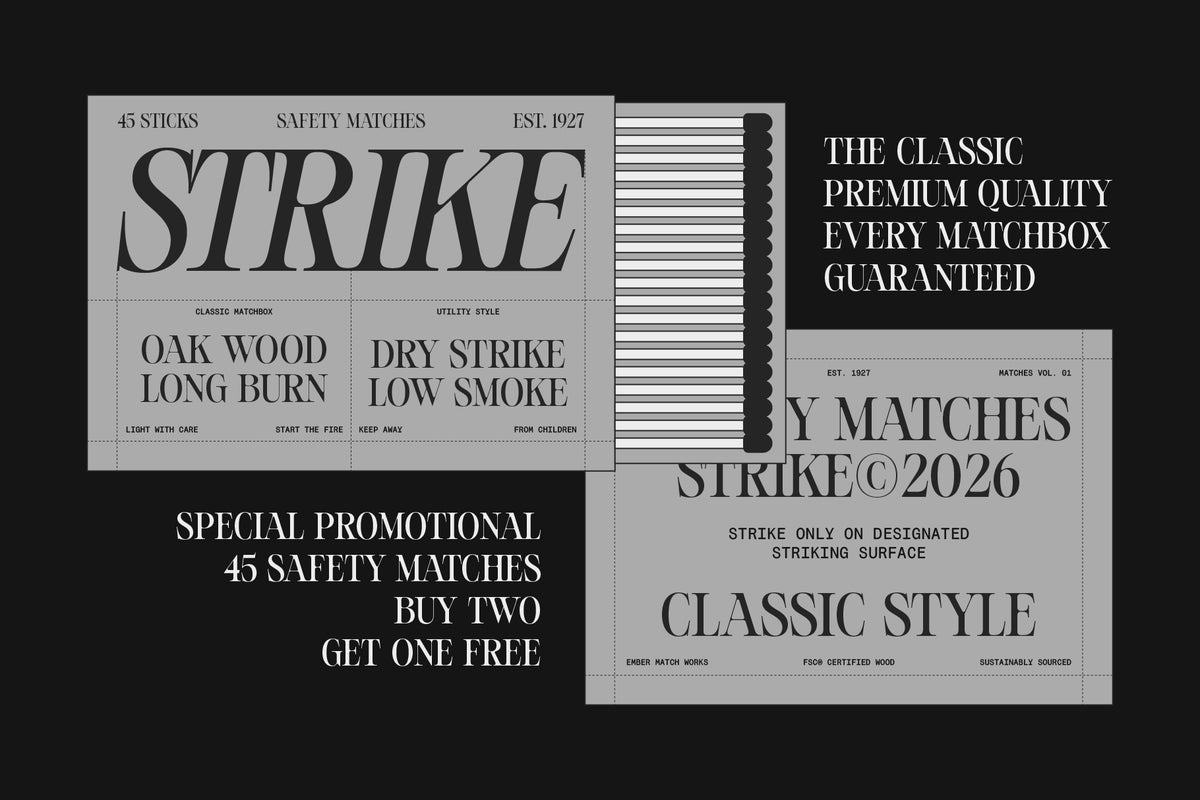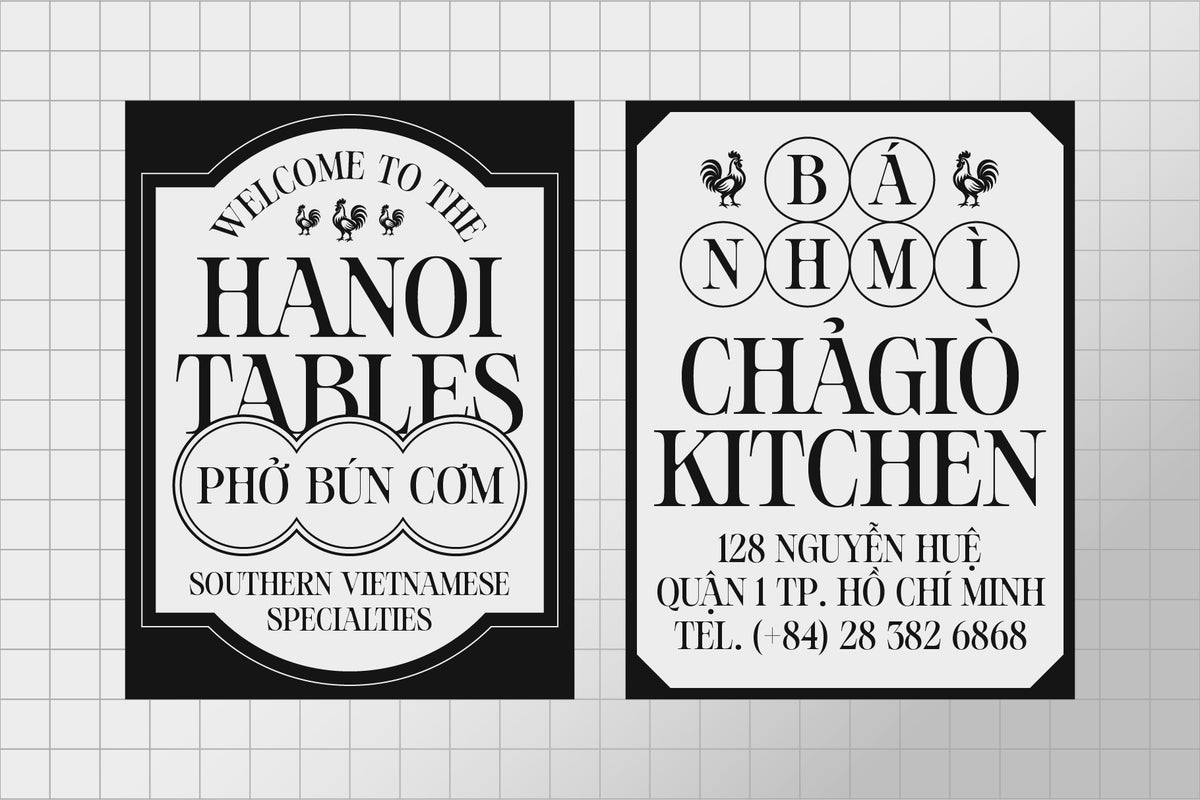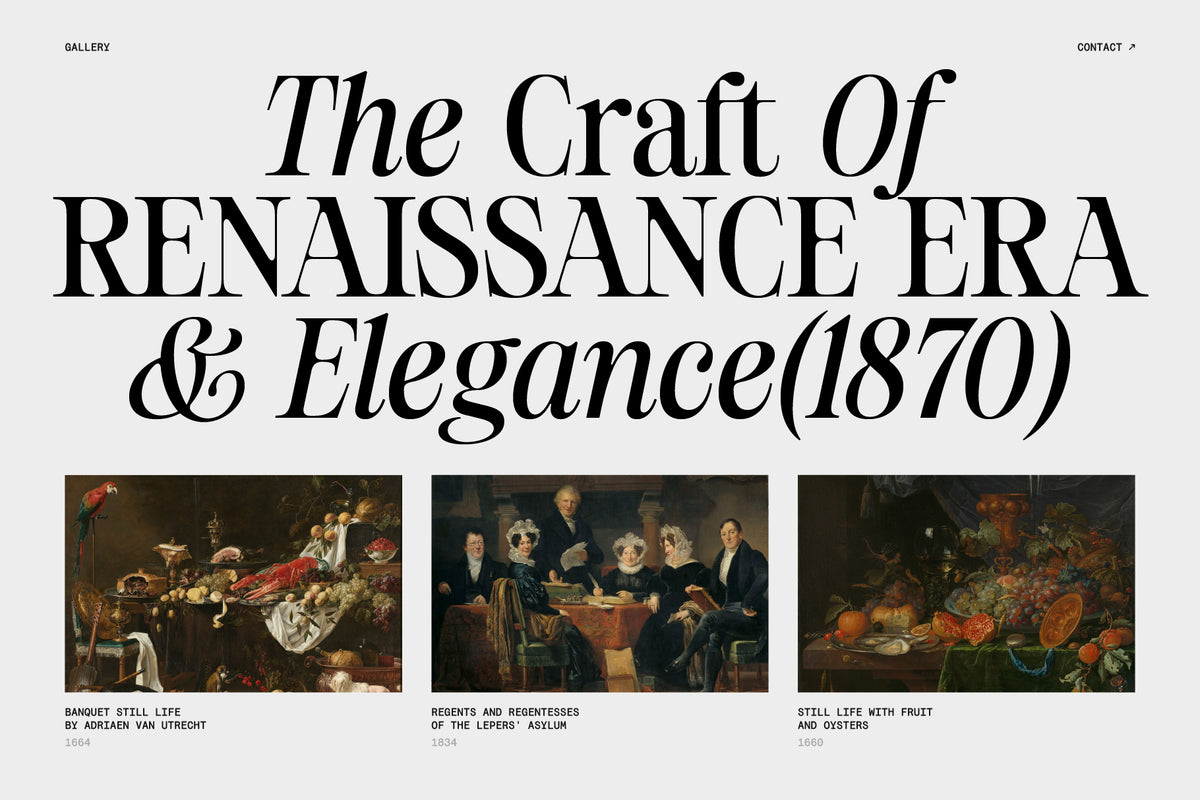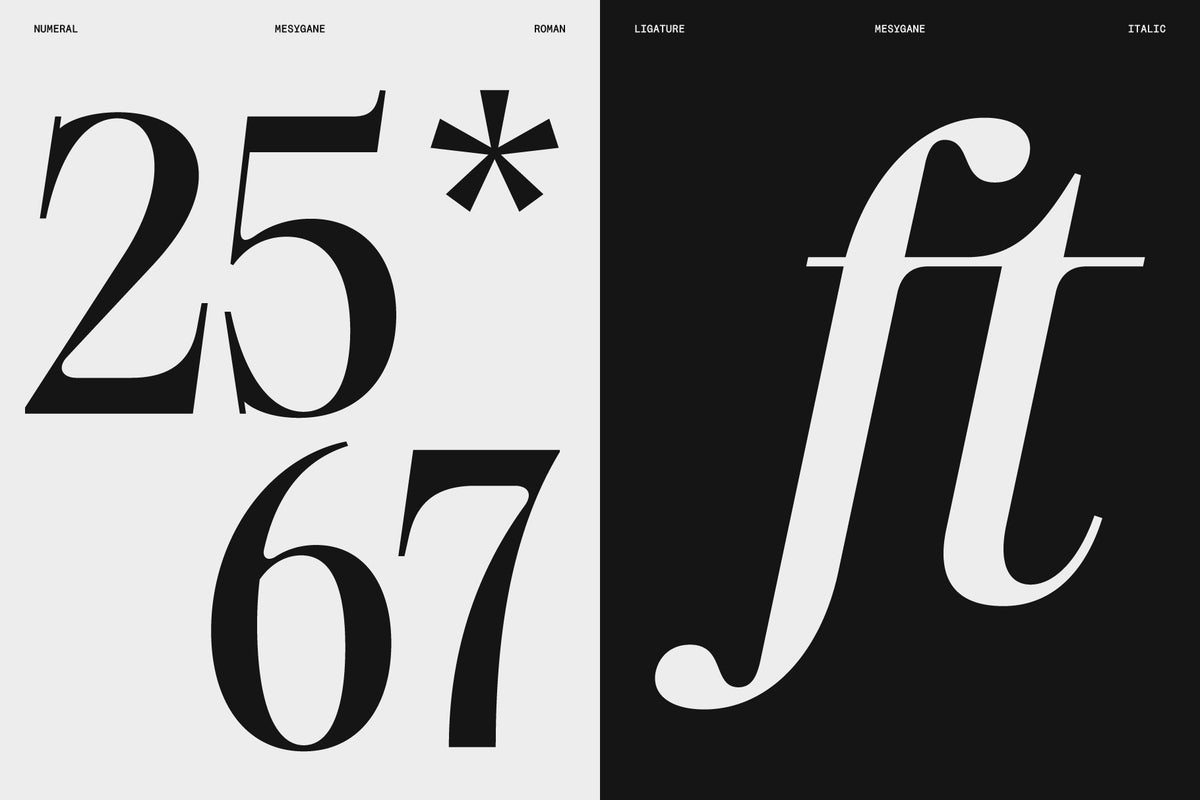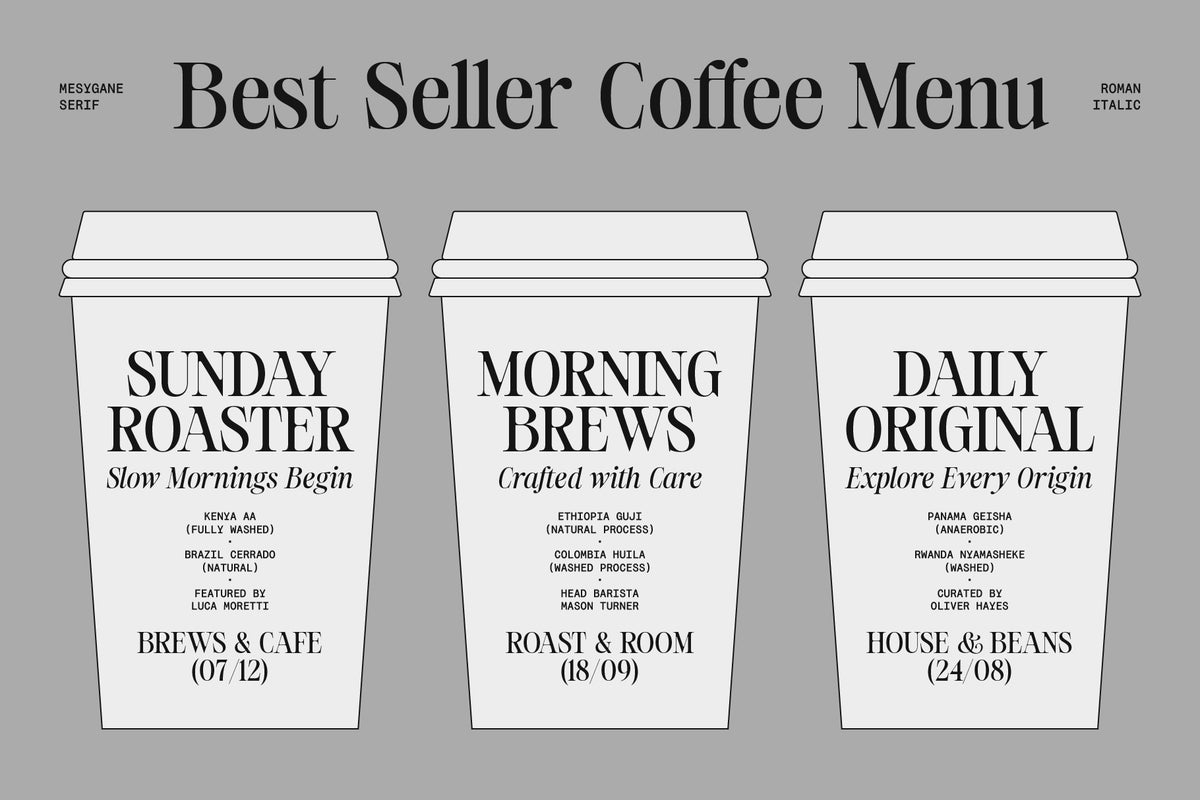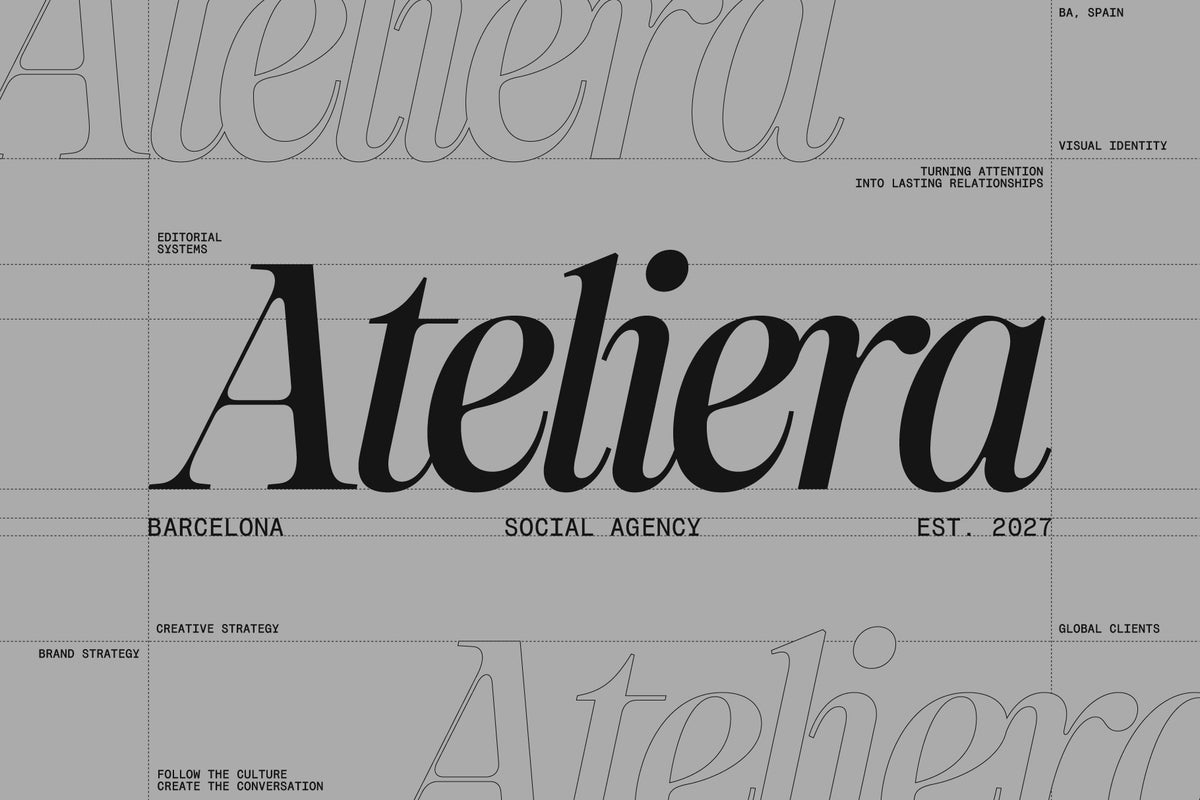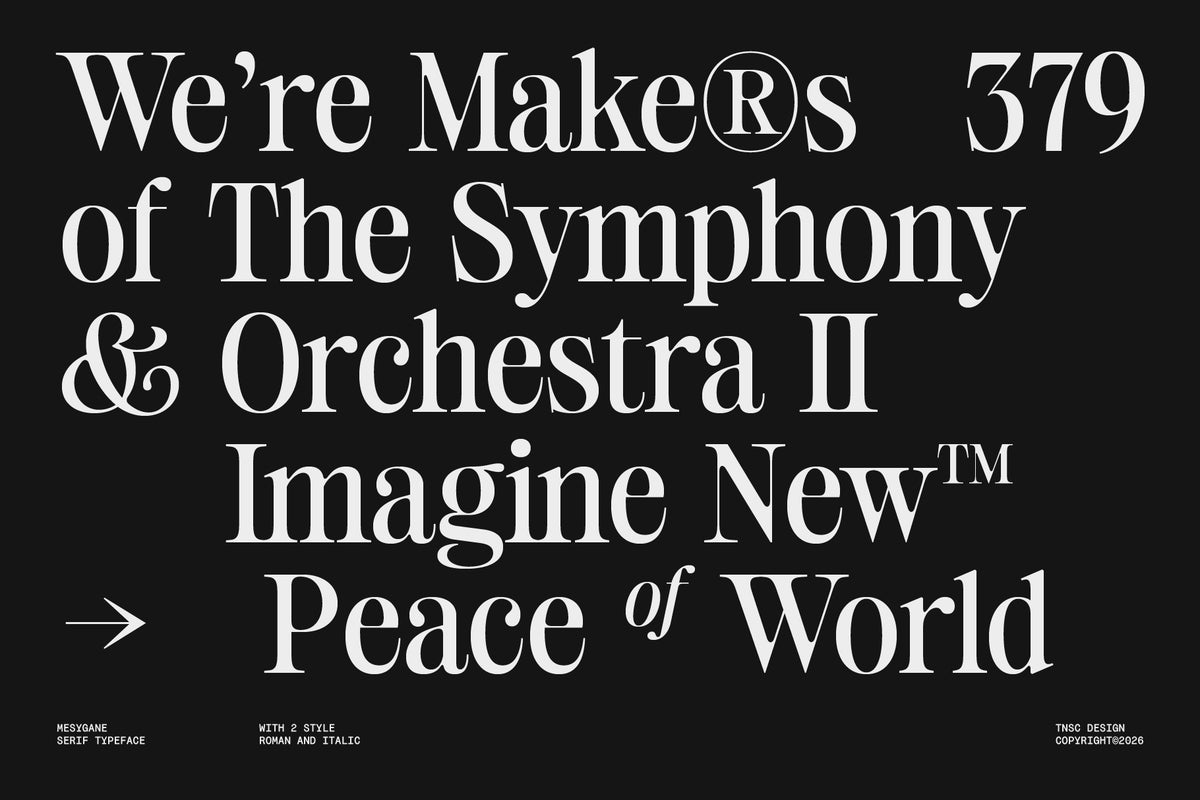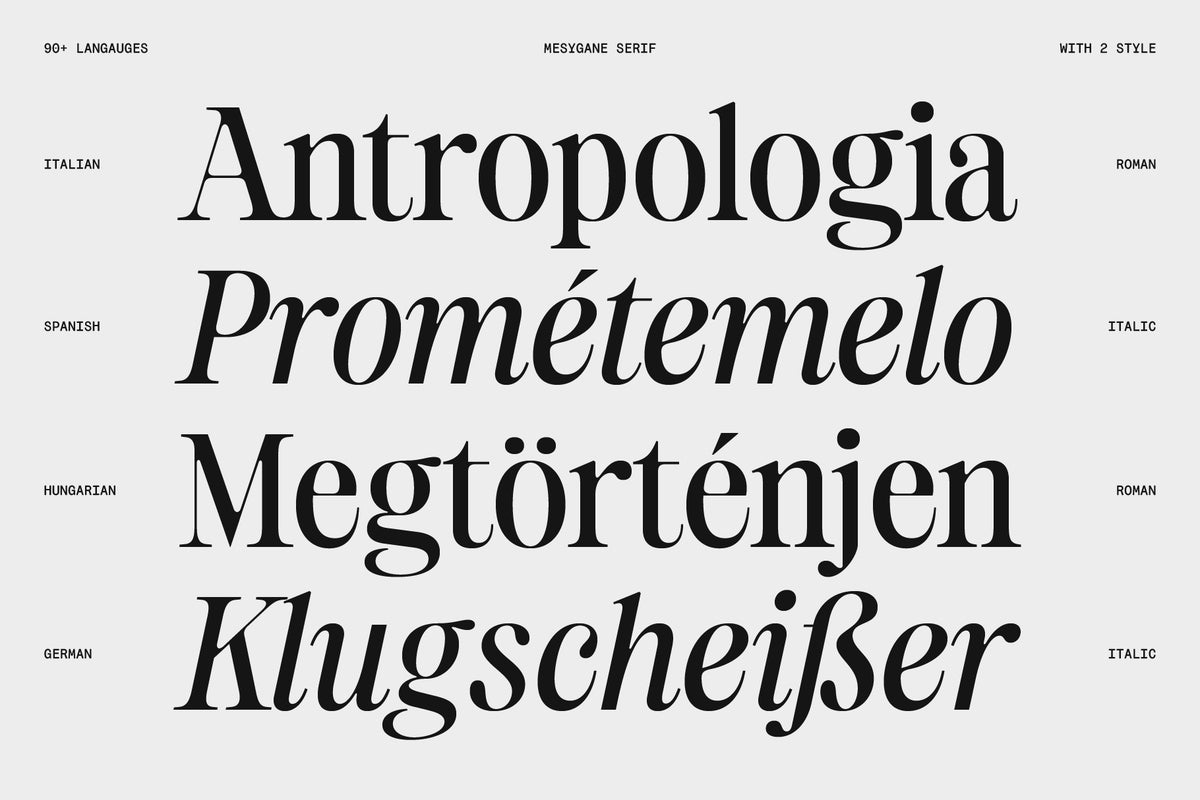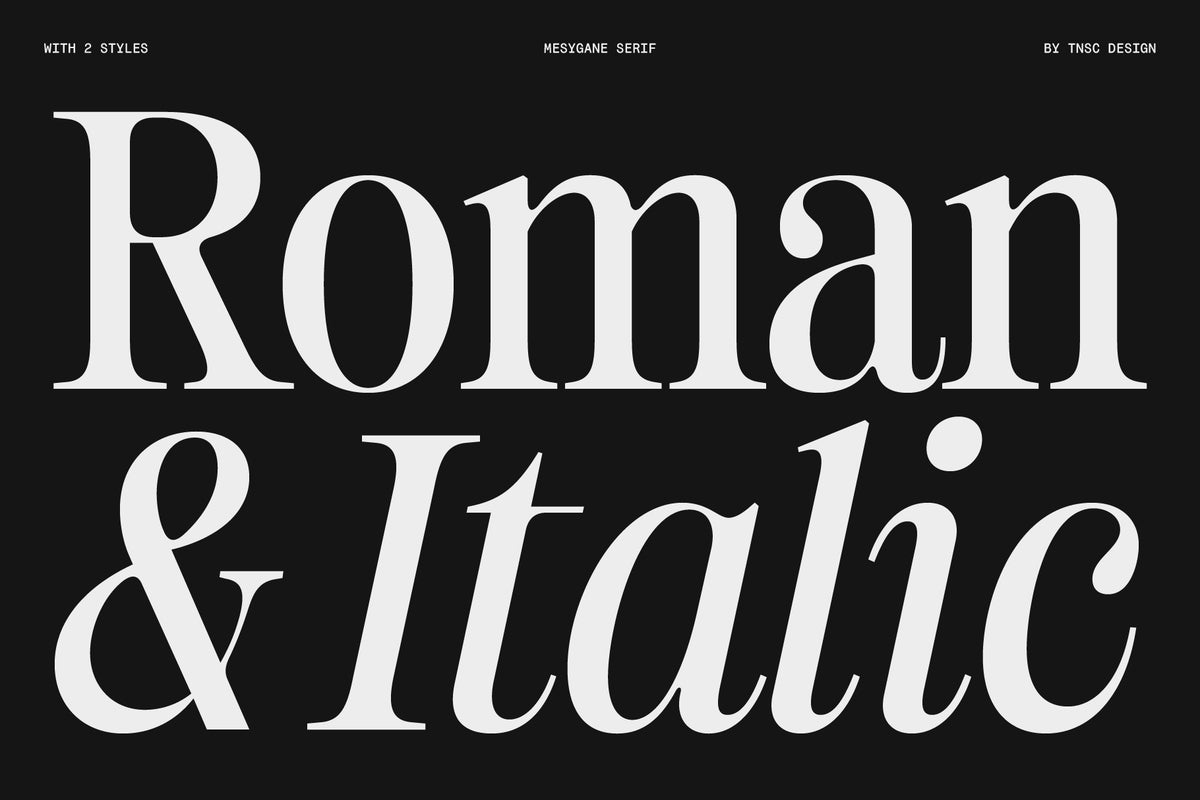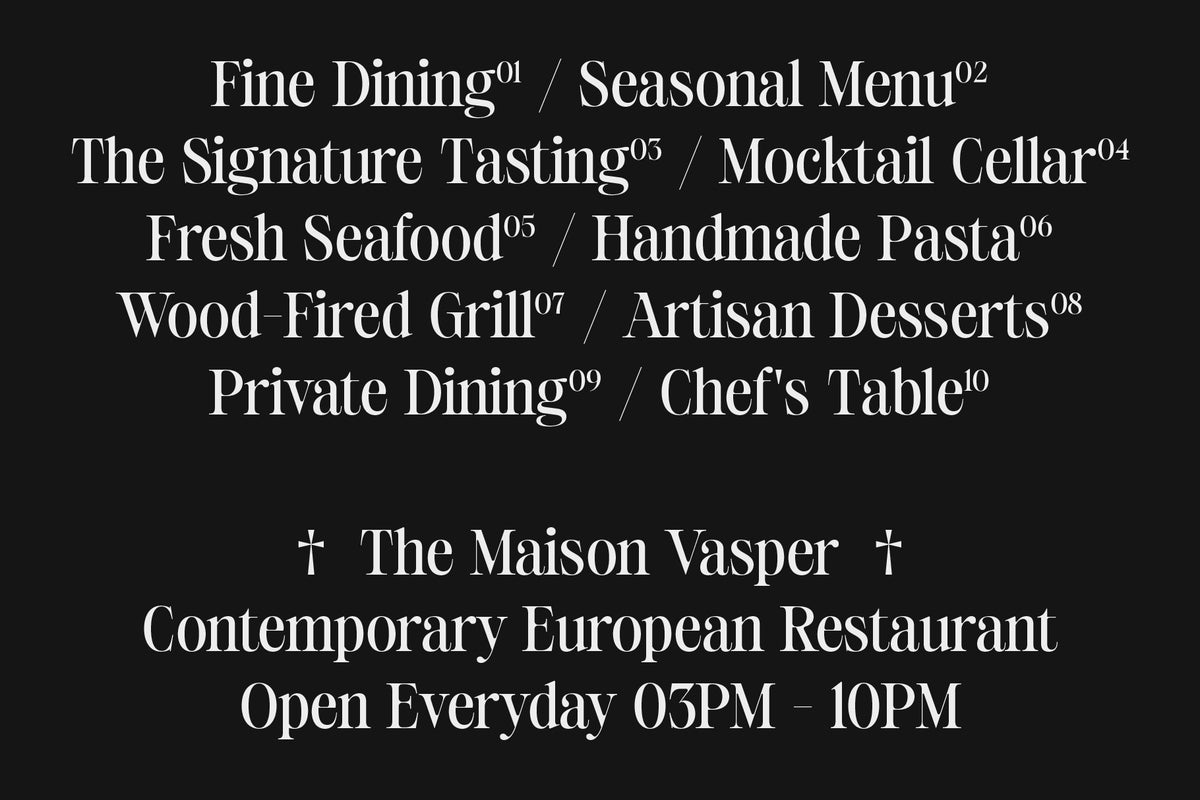
TNSC Mesygáne Typeface
The Native Saint Club
Mesygáne is a contemporary editorial serif typeface with an elegant, refined, and timeless personality. Designed with high-contrast proportions, graceful curves, and sophisticated details, it brings a strong editorial presence while maintaining a clean and modern appearance.
Inspired by luxury publishing, fashion editorials, European restaurant identities, art books, and classic typography, it works beautifully for magazines, branding, packaging, restaurants, fashion, beauty, exhibitions, book covers, and premium editorial layouts. The family comes with 2 styles: Roman and Italic, allowing you to create refined typographic contrast and expressive compositions while keeping a consistent visual identity.